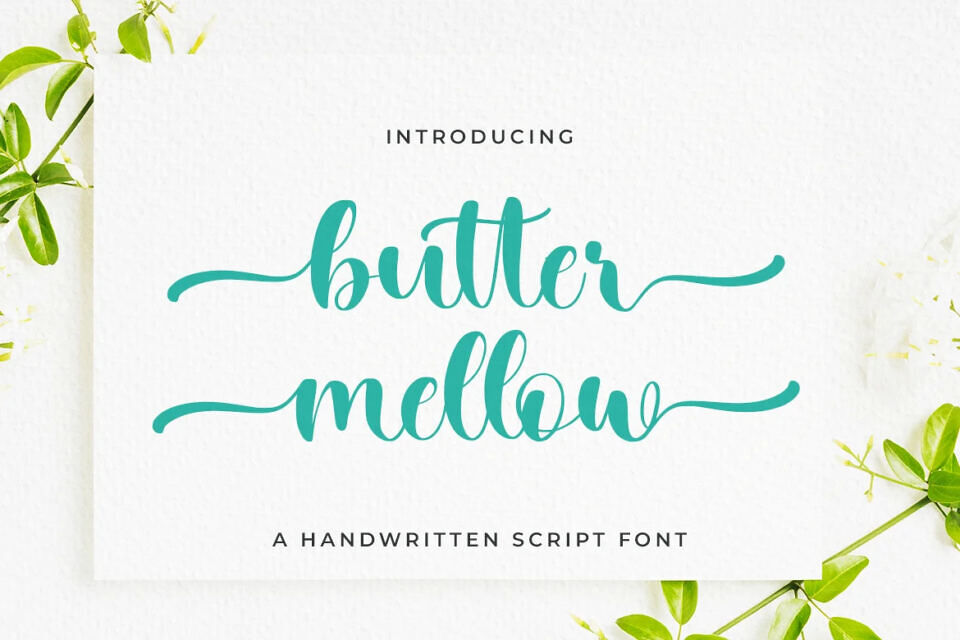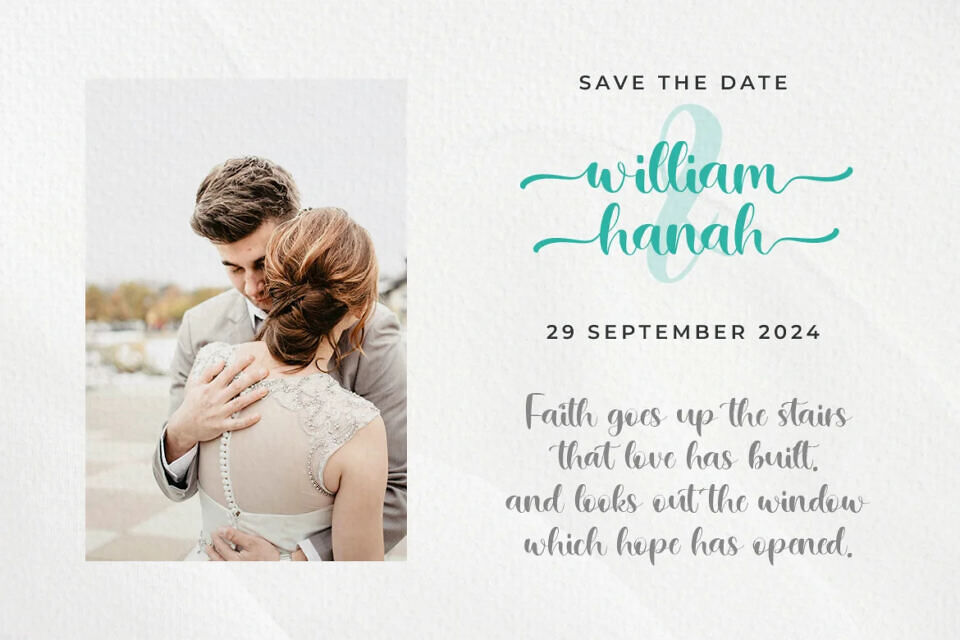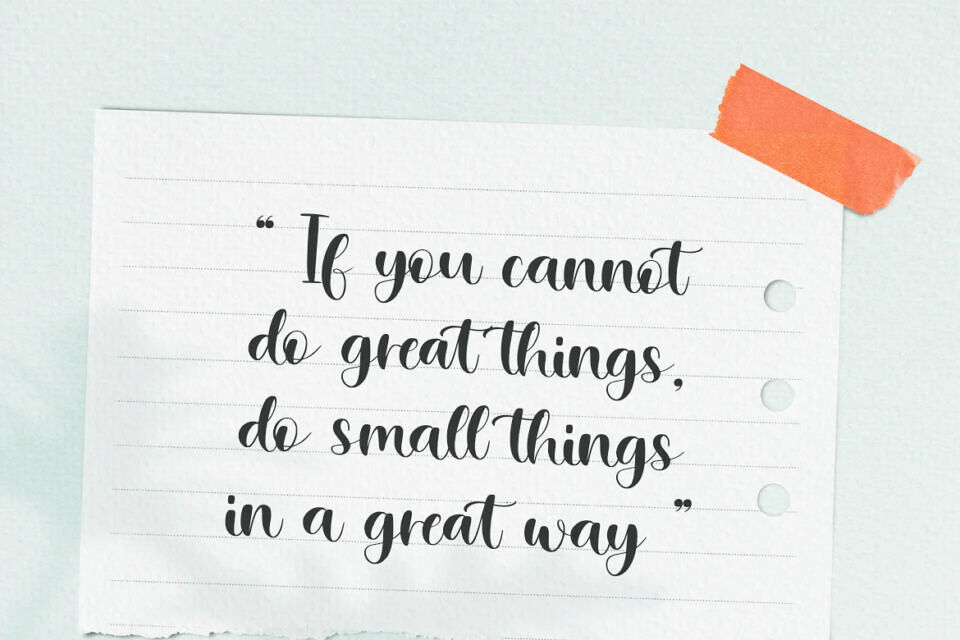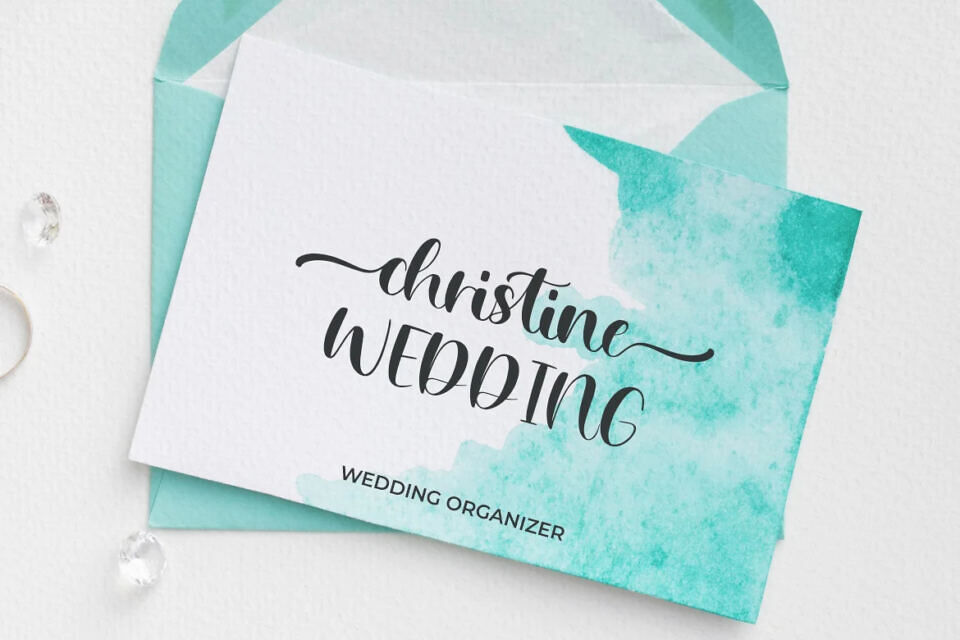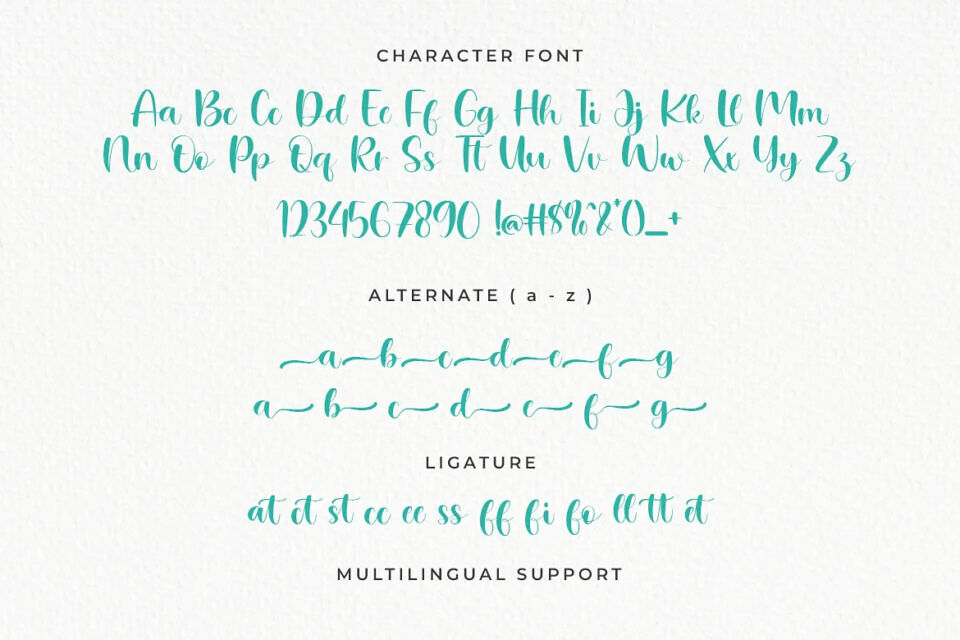
Butter Mellow is a sweet and flowing handwritten script font designed to add a touch of romance to your projects. With its smooth curves and graceful baseline, this typeface mimics the elegance of modern calligraphy while maintaining a readable and authentic feel. It captures the beauty of a hand-penned love letter, making it an instant classic for designs that require a gentle, personal touch.
This font is the perfect match for wedding stationery—from “Save the Date” cards to elegant invitations. It also shines when used for inspirational quotes, feminine branding, greeting cards, and social media posts that need a sophisticated yet warm vibe.